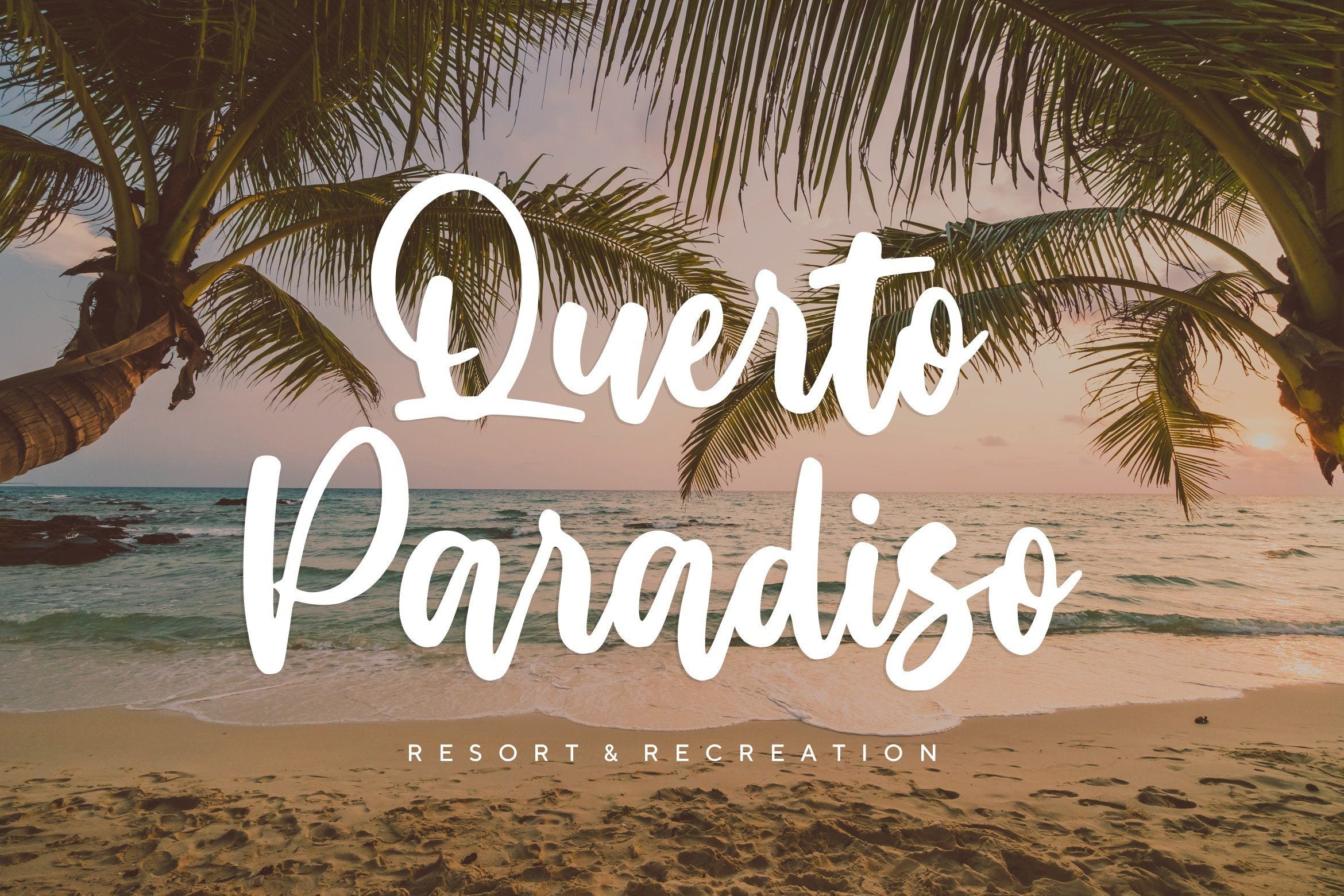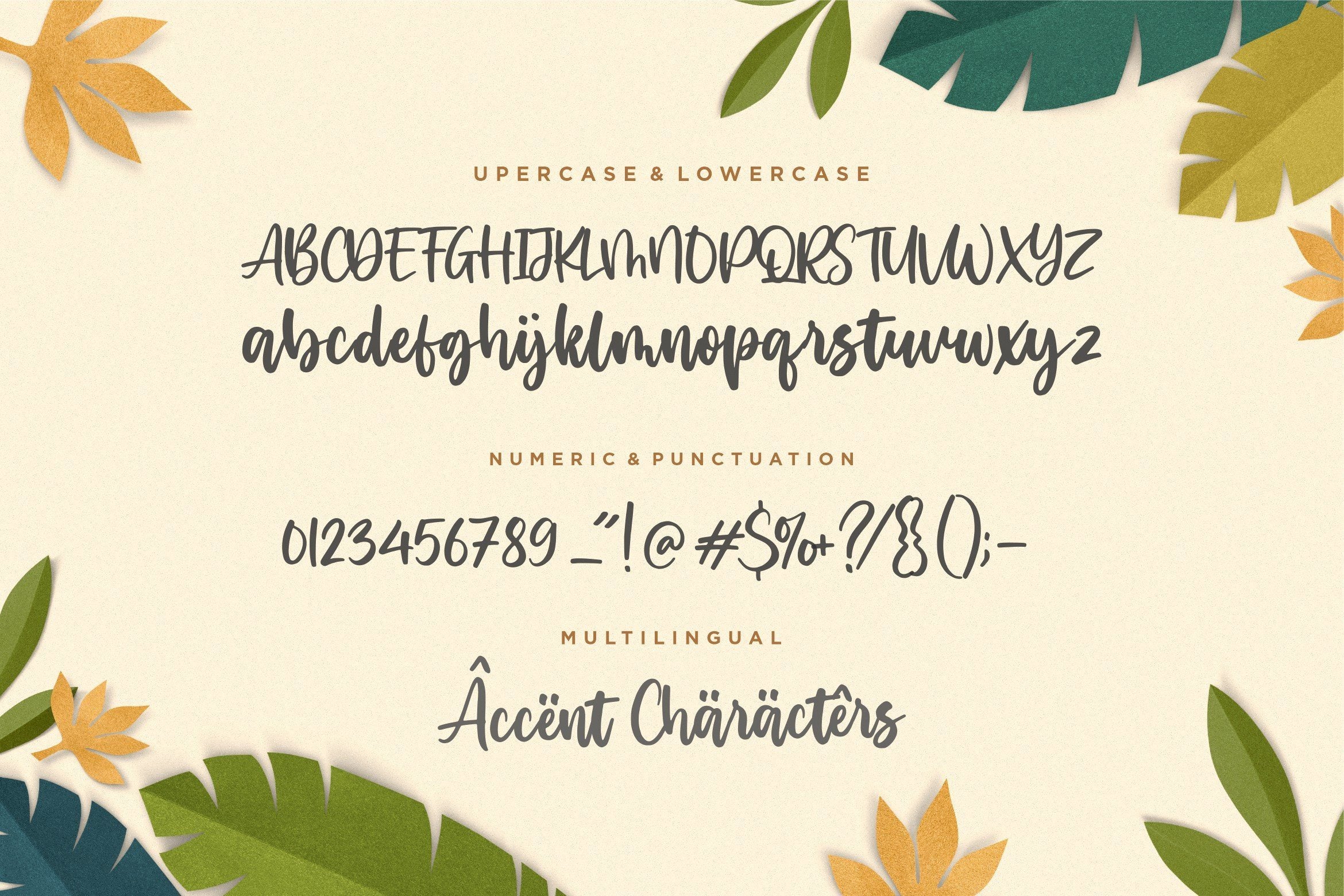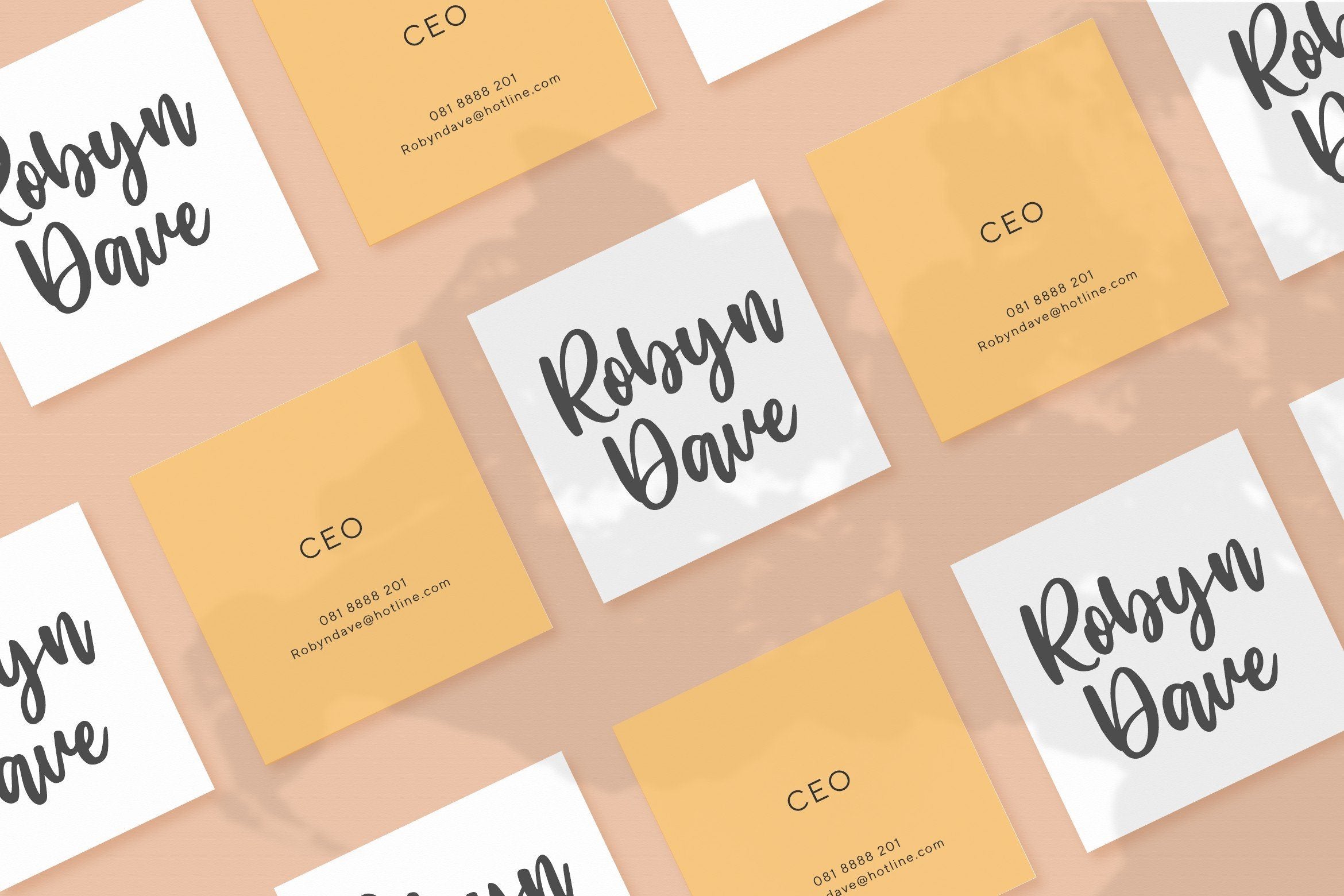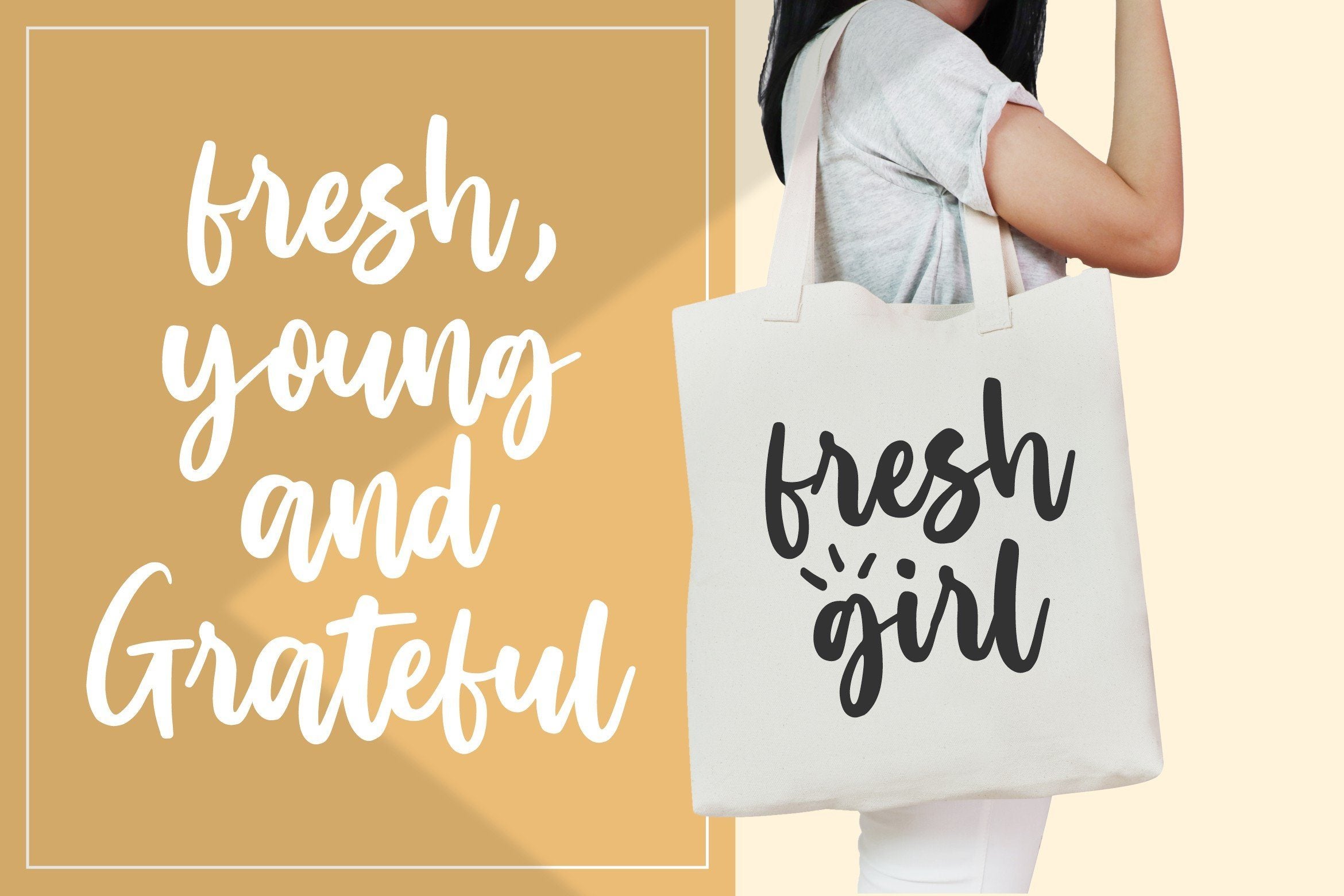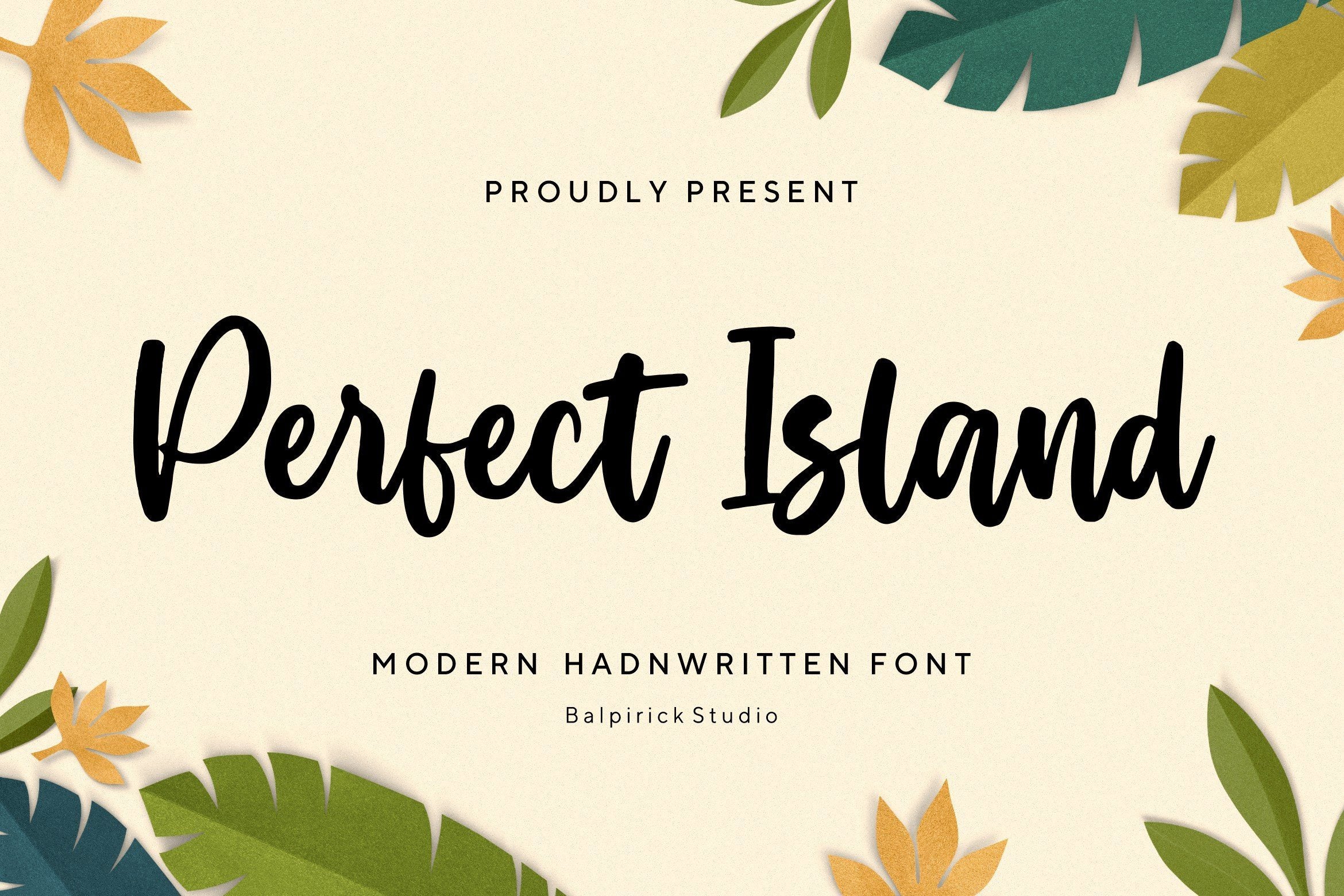
About Perfect Island Modern Handwritten Font
Introducing by Balpirick Studio. Proudly Present, Perfect Island Font. Perfect Island is a Modern Handwritten Font. Perfect Island is a lovely script font featuring charming, playful characters that seem to dance along the baseline. Add this font to your most creative ideas, and notice how it makes them stand out! This font includes TTF, OTF and WOFF, Perfect Island also multilingual support. Enjoy the font, feel free to comment or feedback, send me PM or email. Thank you!